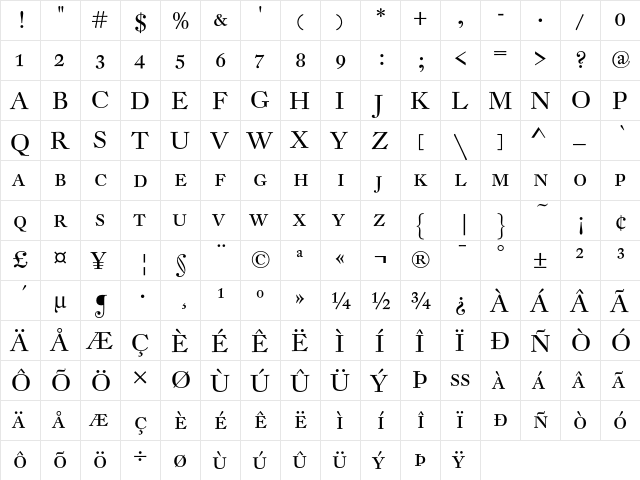
DTLFleischmannD Caps
Design Context for DTLFleischmannD Typeface
DTLFleischmannD offers clean, dependable letterforms without strong stylistic allegiance, making it a practical choice for designers who need flexibility.